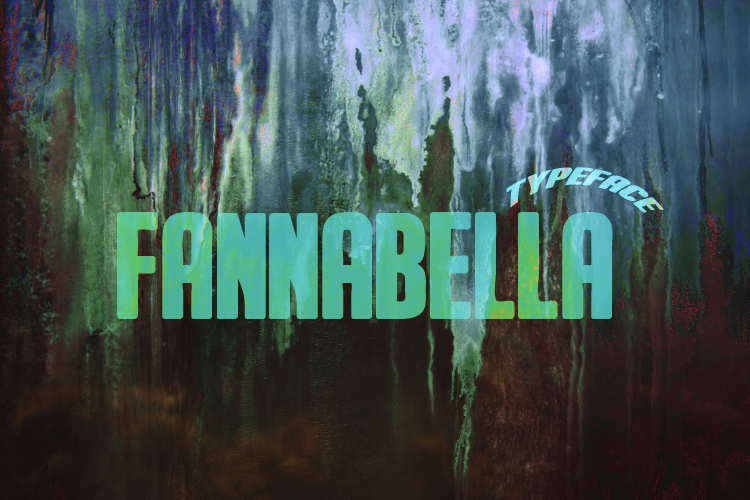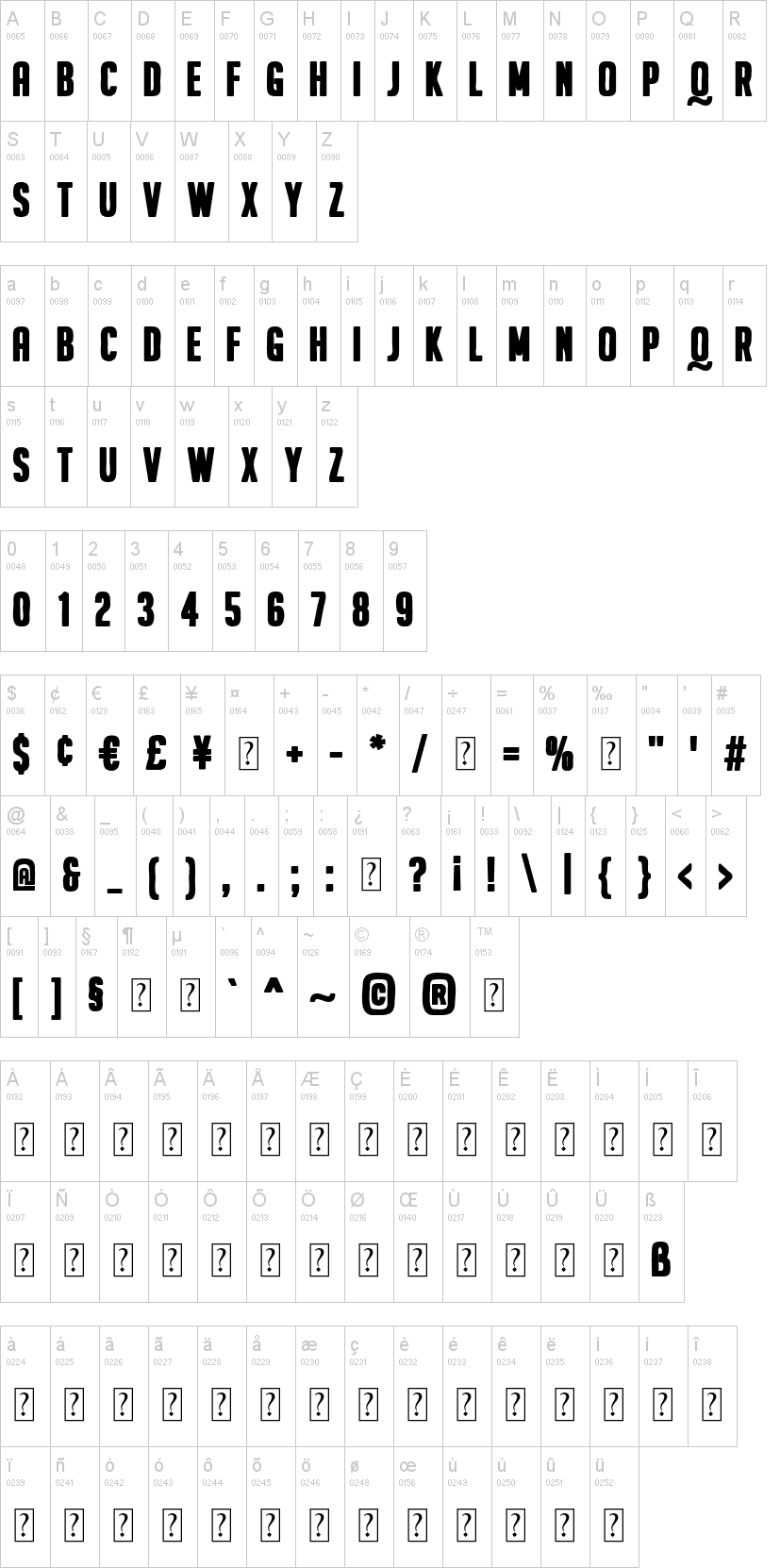
FANNABELLA is a thick brush display font, it provides a level of detail that you can't get with traditional typography.
This is a brush font with basic sans serif bold style. It will be perfect for posters, packaging, advertising, headlines, branding, signage, and whatever you want to look and feel in urban areas.